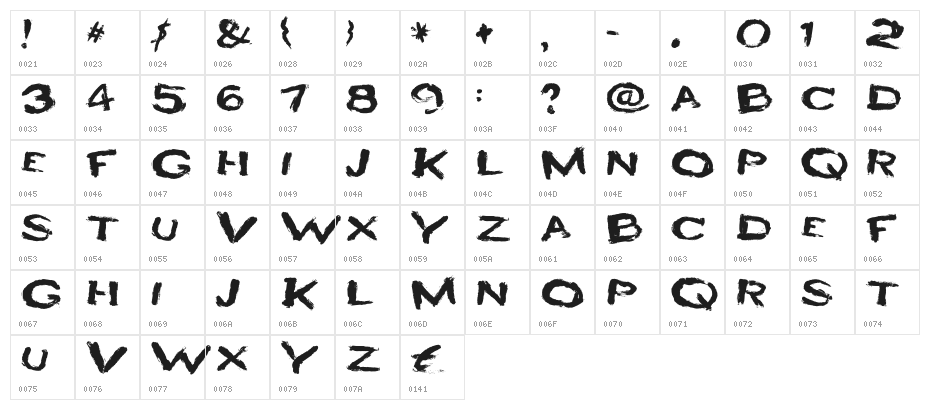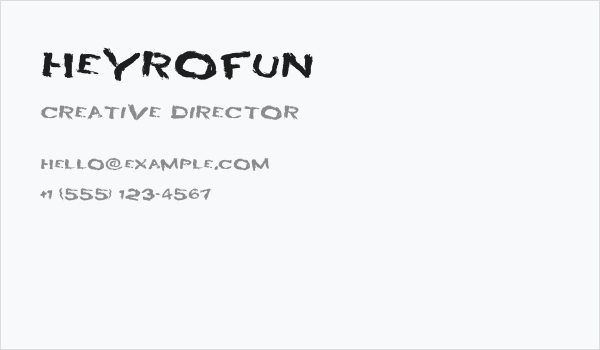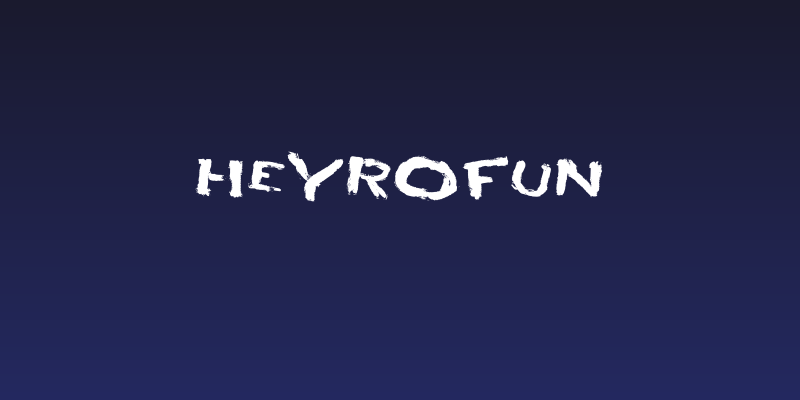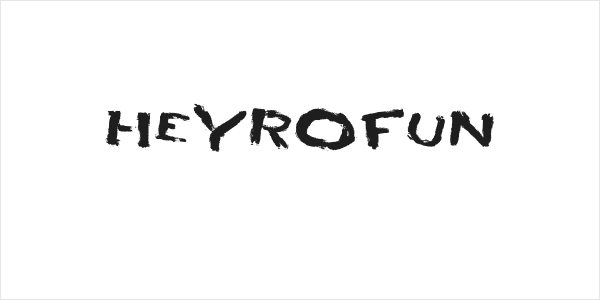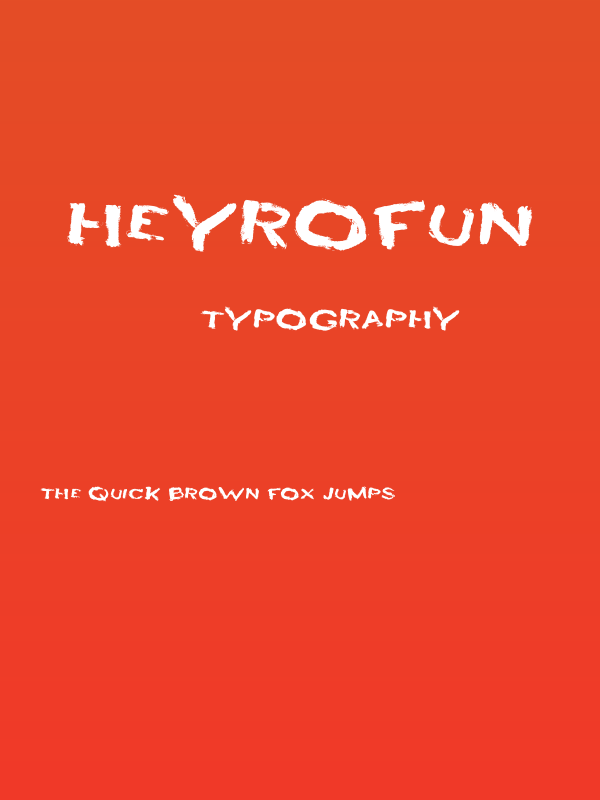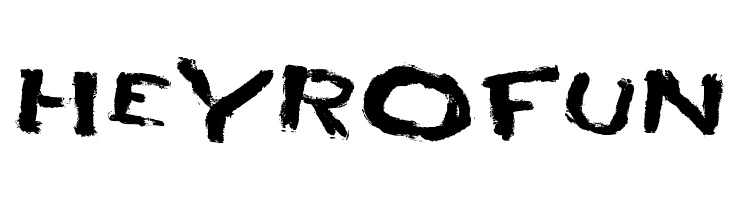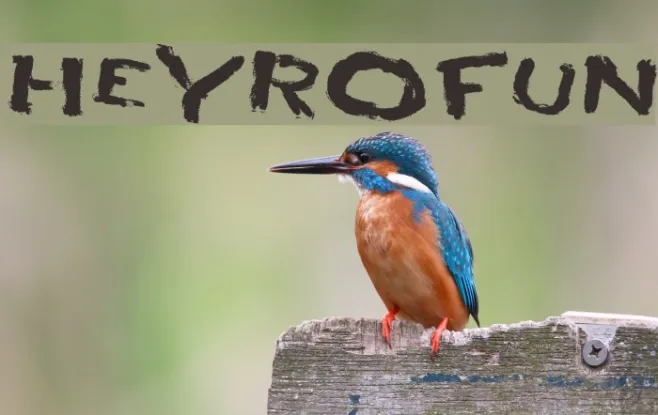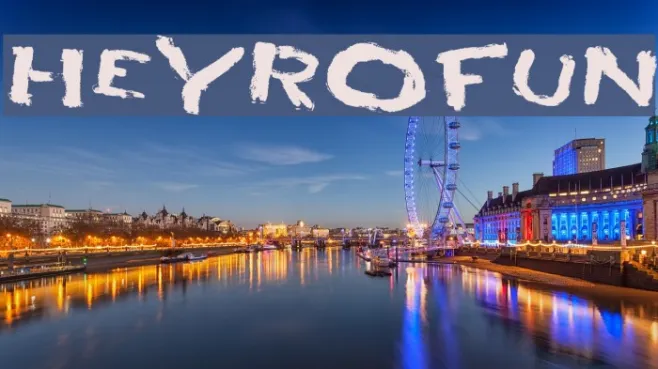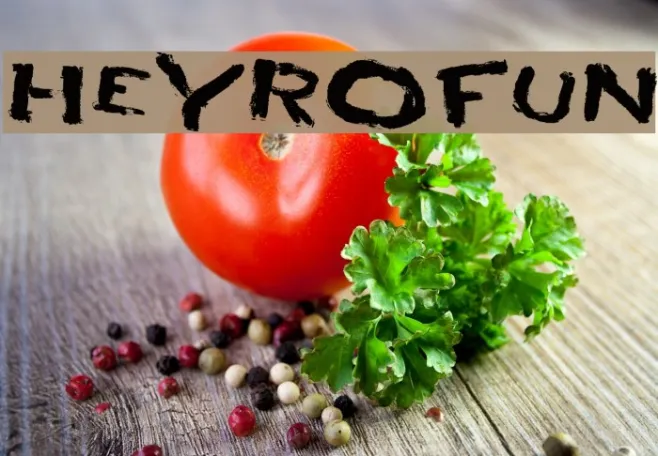
HEYROfun Font
HEYROfun Description
This font exhibits a bold and expressive style, characterized by its brushstroke-like appearance. The letters are crafted with a rough, textured finish, giving them a dynamic and energetic feel. The uppercase and lowercase letters maintain a consistent style, with varying thickness in the strokes that adds to the font's visual interest. The numerals and special characters follow the same design principles, ensuring a cohesive look across all elements. This font's unique style makes it stand out, perfect for projects that require a strong visual impact.
| Overall Style | Modern, Artistic |
| Proposed Projects | Ideal for posters, branding, album covers, and any project needing a bold, artistic touch. |